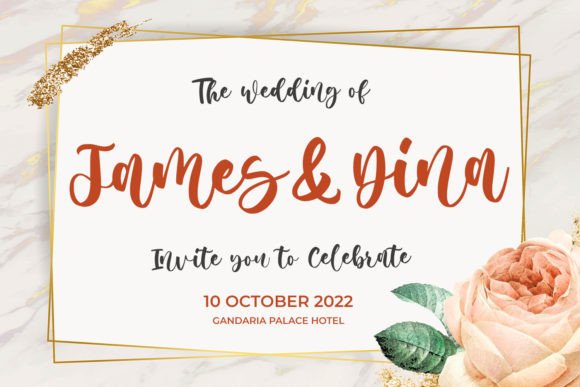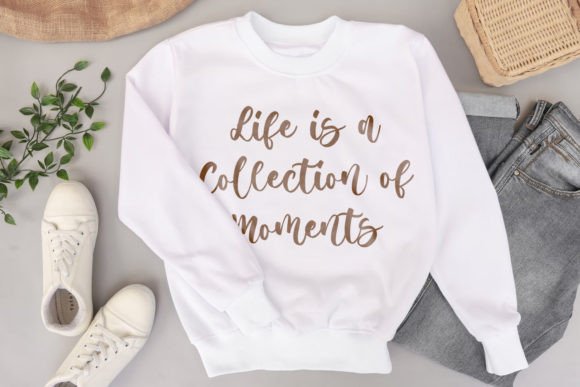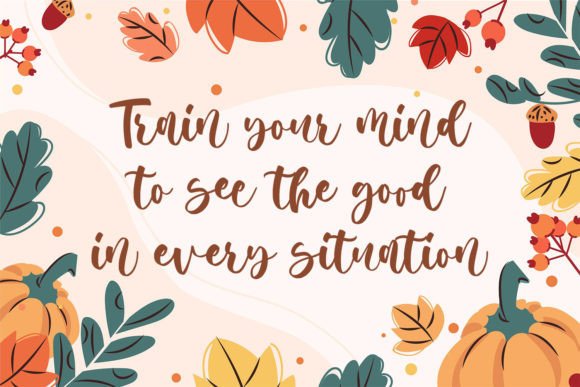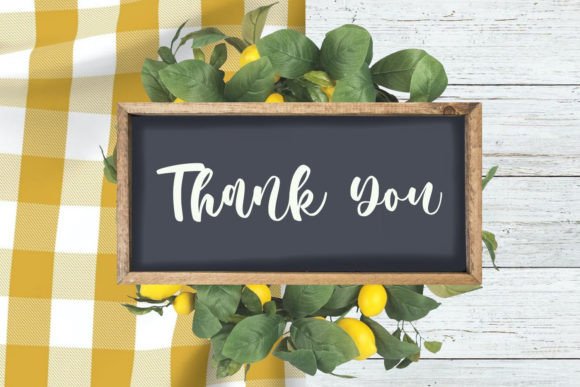
Unleashing the Beauty of Handwritten Typography
Have you ever been working on a design project and suddenly, a spark of inspiration hits you? The perfect font, the ideal color palette, the captivating imagery – everything falls into place, and you know you’ve created something truly special. For many designers, this moment is what drives their passion for creating beautiful and meaningful designs. And for those who have experienced this magic, we have a special treat in store – introducing the Beauty Sellena Font.
This elegant and flowing handwritten font is a treasure trove of creativity, offering beautiful and well-balanced characters that can elevate any design. With its versatility, Beauty Sellena Font is the perfect choice for designers who want to add a touch of sophistication and elegance to their projects. Whether you’re working on a wedding invitation, a branding campaign, or a social media post, this font is sure to make your designs stand out.
Beauty Sellena Font Key Features
- Font Family: Beauty Sellena, a modern and elegant script font designed for feminine and creative projects.
- Unique Characteristics: Features swashes, ligatures, and alternate characters, adding a touch of sophistication and elegance to designs.
Beauty Sellena Font Review
At first glance, Beauty Sellena Font seems to be a beautiful, elegant script font. ✨ It’s perfect for those who want to add a touch of sophistication to their designs. I can see it working well for fashion, beauty, or lifestyle brands. The font’s flowing lines and cursive style make it ideal for headings, titles, or even body text in certain contexts.
- ✨ It has a wide range of languages supported, making it a great choice for international brands.
- ✨ The font is highly customizable, allowing users to adjust the weight, size, and spacing to suit their design needs.
- ✨ It’s also a great choice for digital products, such as websites, social media, or mobile apps.
However, there are some limitations to consider. ⚠️ The font can look a bit too ornate or overwhelming if used excessively. It’s best to use it in moderation and pair it with simpler fonts to avoid visual clutter. Additionally, some users may find the font’s cursive style difficult to read at smaller font sizes.
Overall, I think Beauty Sellena Font is a beautiful and versatile font that can add a touch of elegance to any design. While it may have some limitations, it’s a great choice for those who want to create a sophisticated and stylish look.
Tip: Use the Beauty Sellena Font for feminine and elegant designs, such as wedding invitations, baby shower invitations, or feminine business cards.
Tip: Use the Beauty Sellena Font for creative and artistic designs, such as custom logos, branding materials, or social media graphics.
Tip: Use the Beauty Sellena Font for professional and elegant presentations, reports, or documents.
The Beauty Sellena Font is ideal for:
- Feminine and elegant designs
- Wedding and baby shower invitations
- Feminine business cards and stationery
- Custom logos and branding materials
- Professional and elegant presentations and documents